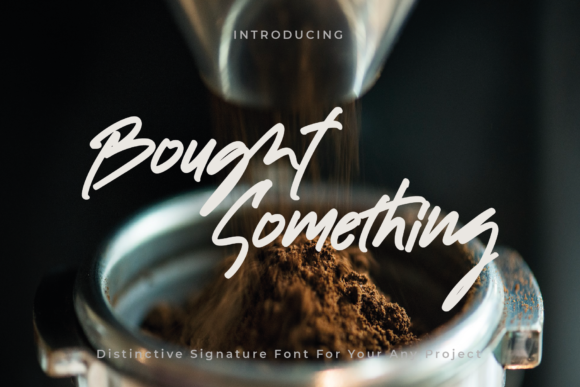
Unleash your creativity with Bought Something Font, the ultimate script font that exudes individuality and charm. Immerse yourself in a world of enchanting designs, where your imagination knows no bounds. This captivating font, meticulously crafted by aldedesign, has been hailed as one of the Best Fonts For Web Design 2014.
Dive into the world of Bought Something Font, where every letter dances with a unique personality. Its informal style and casual vibe make it the perfect companion for projects that demand a relaxed and inviting touch. Whether you're creating eye-catching logos, whimsical invitations, heartfelt greeting cards, or captivating social media posts, Bought Something Font is your artistic passport to a world of endless possibilities.
With Bought Something Font, the creative possibilities are limitless. Its adaptable nature makes it an ideal choice for a wide range of projects, from personal to professional. Whether you're a seasoned designer seeking to add a touch of whimsy to your work or a creative enthusiast exploring the art of typography, Bought Something Font is your gateway to an unforgettable design experience.
Embrace the magic of Bought Something Font and watch your designs come alive with character and charm. Its PUA encoding ensures effortless access to all glyphs and swashes, making it a breeze to incorporate intricate details and flourishes into your creations. Open the door to a world of typographic exploration and let Bought Something Font ignite your imagination.